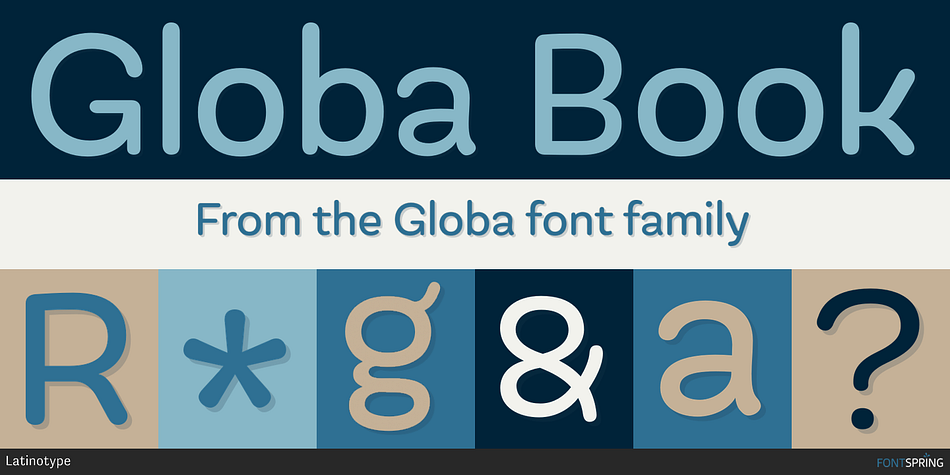
Designed by Pedro Gonzalez Jorquera, Globa is a sans serif font family. This typeface has nine styles and was published by Latinotype.
Globa Book
Globa is a low contrast round typeface that resembles American ‘Sign Painting’. The upper portion of the characters is bigger than the lower one, what gives the font a more playful and friendly personality. Another remarkable feature is its hooked terminals in characters such as C, G or S, heightening the differences between similar characters.
The Globa Family is composed of 9 different weights ranging from Thin to Extra Black plus a full set of Dingbats. Globa was designed by Pedro González, under the supervision of the Latinotype Team.